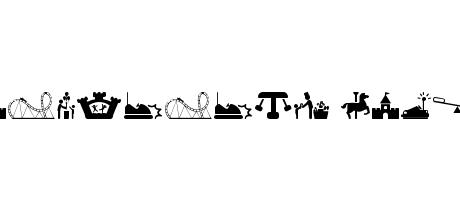
Amusement Park
Amusement Park is a playful, bold pictographic font. Each character depicts a thrilling amusement park attraction, from rollercoasters and bumper cars to carousels and a simple seesaw. The style is uniformly black and white, suggesting a classic, nostalgic feel, ideal for signage or themed projects needing a fun, instantly recognizable visual language.